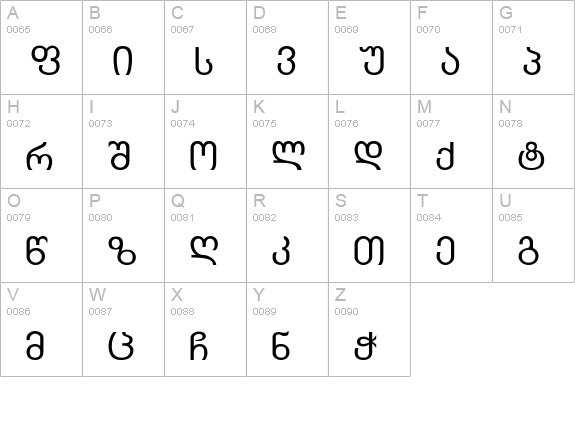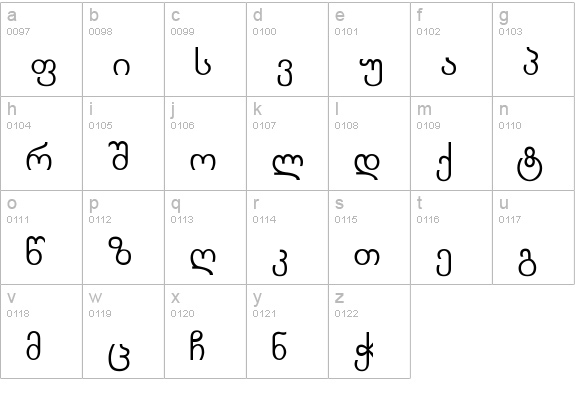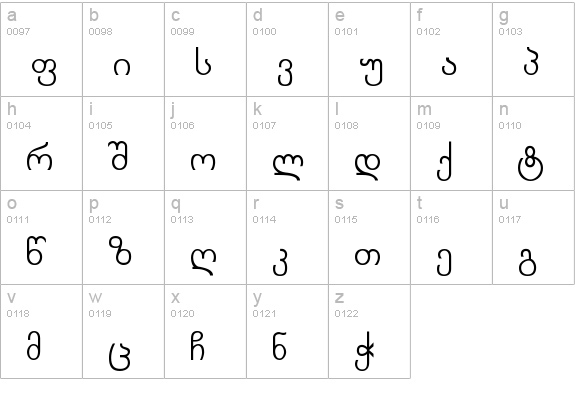
Kolkhety-ITV Font Details
Kolkhety-ITV font is a stunning display typeface that offers a perfect blend of elegance and modernity. With its sleek lines and unique design, this font is sure to make your projects stand out. Whether you're designing a logo, poster, or website, Kolkhety-ITV font will add a touch of sophistication to your work. The best part about Kolkhety-ITV font is that it is completely free to download at FontsMarket.com. This means you can easily access this beautiful font and use it in your projects without any cost. Don't miss out on the opportunity to enhance your designs with the beauty of Kolkhety-ITV font - download it today and see the difference it can make!